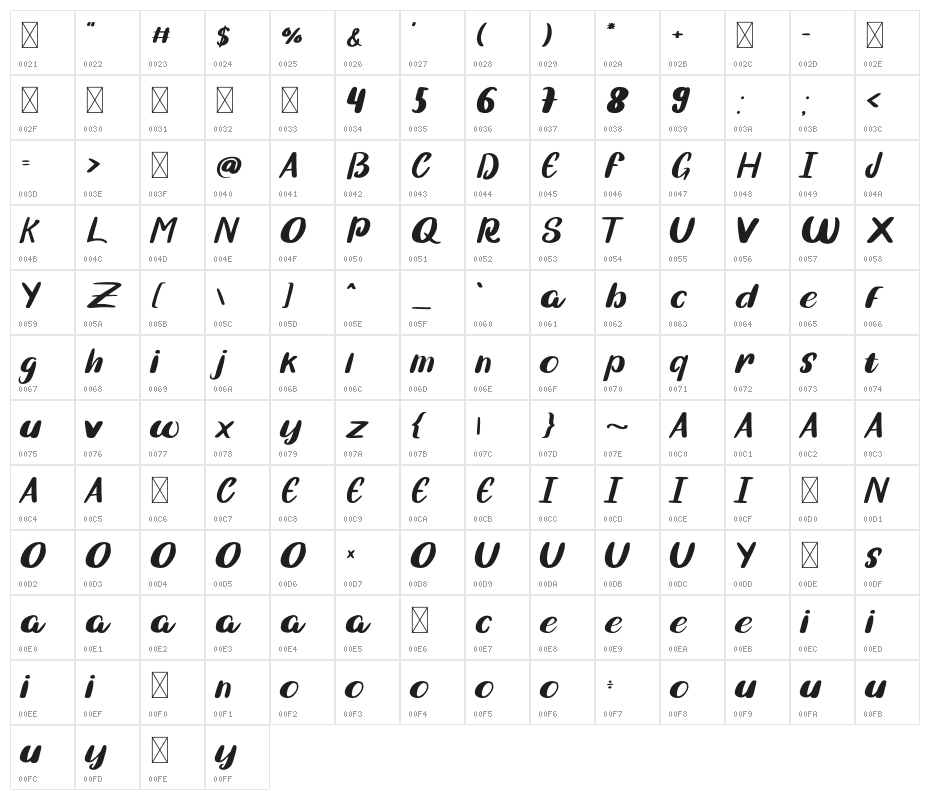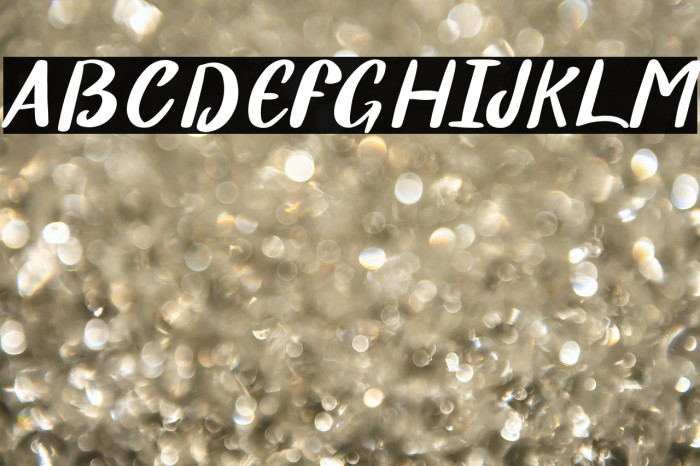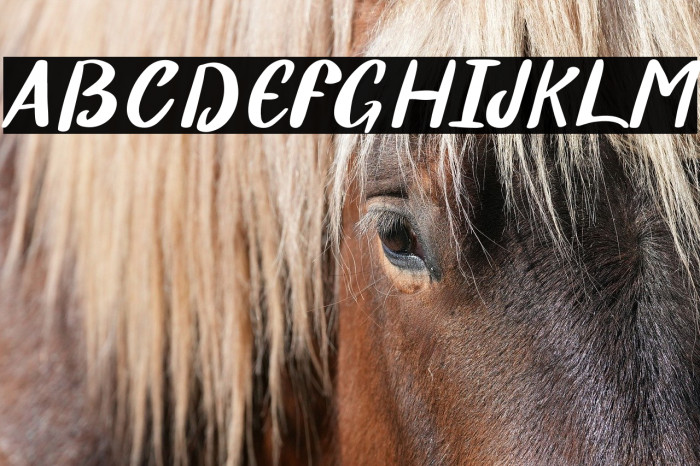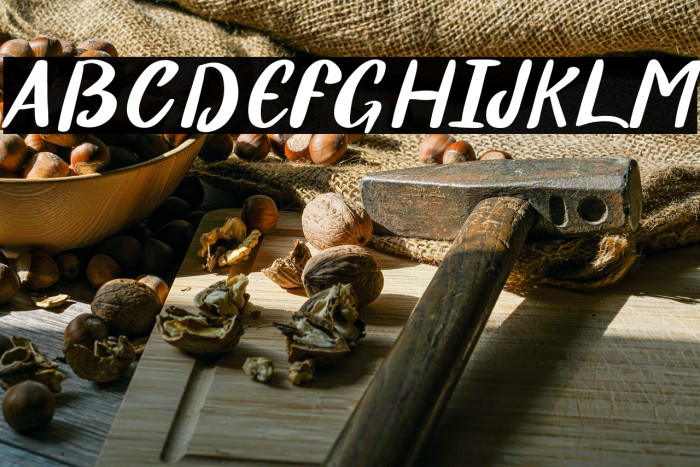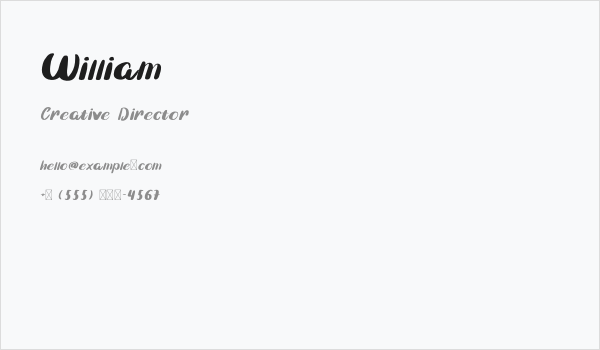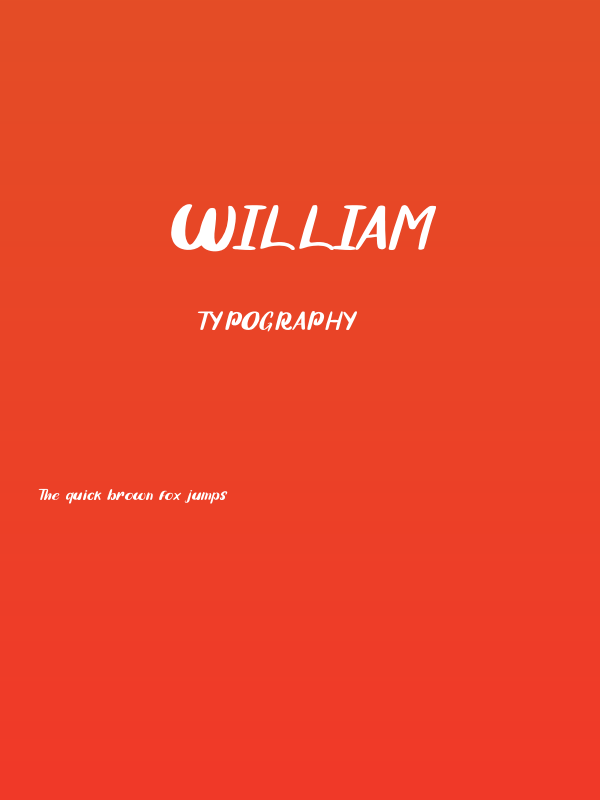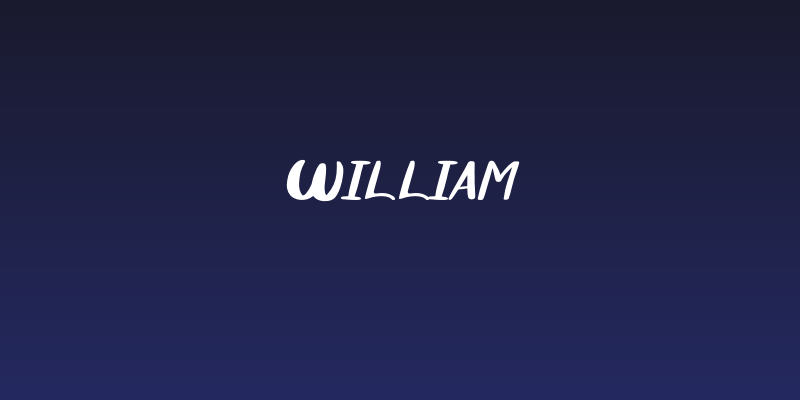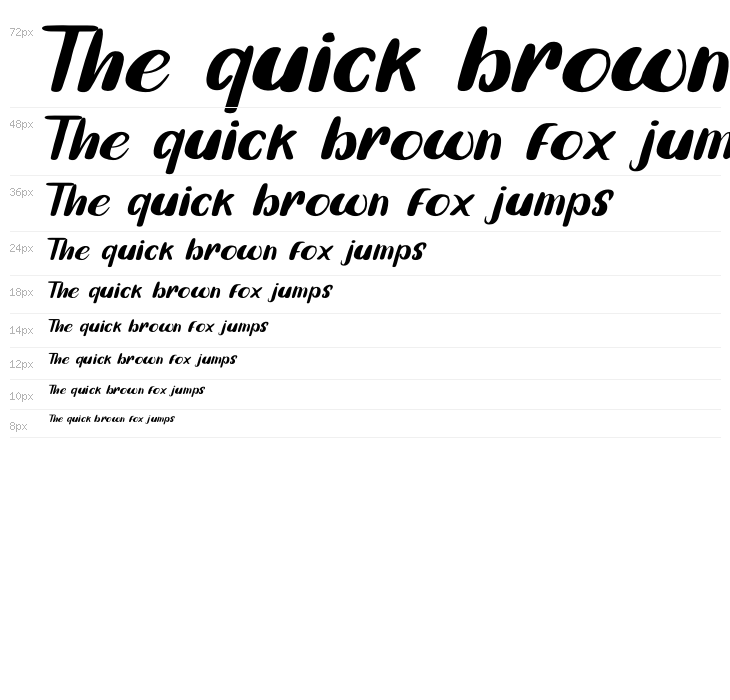
William Font
William Description
This font features a bold, cursive style with smooth, flowing strokes that give it a dynamic and energetic appearance. The uppercase letters are slightly slanted, adding a sense of movement and elegance. The lowercase letters maintain a consistent style, complementing the uppercase with their rounded forms and fluid connections. The numbers are bold and maintain the same cursive style, ensuring uniformity across the character set. Special characters are designed to match the overall aesthetic, making this font suitable for creative and expressive projects.
| Use Case | Logos, Invitations, Greeting Cards |
| Proposed Projects | Ideal for branding, invitations, greeting cards, and creative design projects that require a personal touch. |